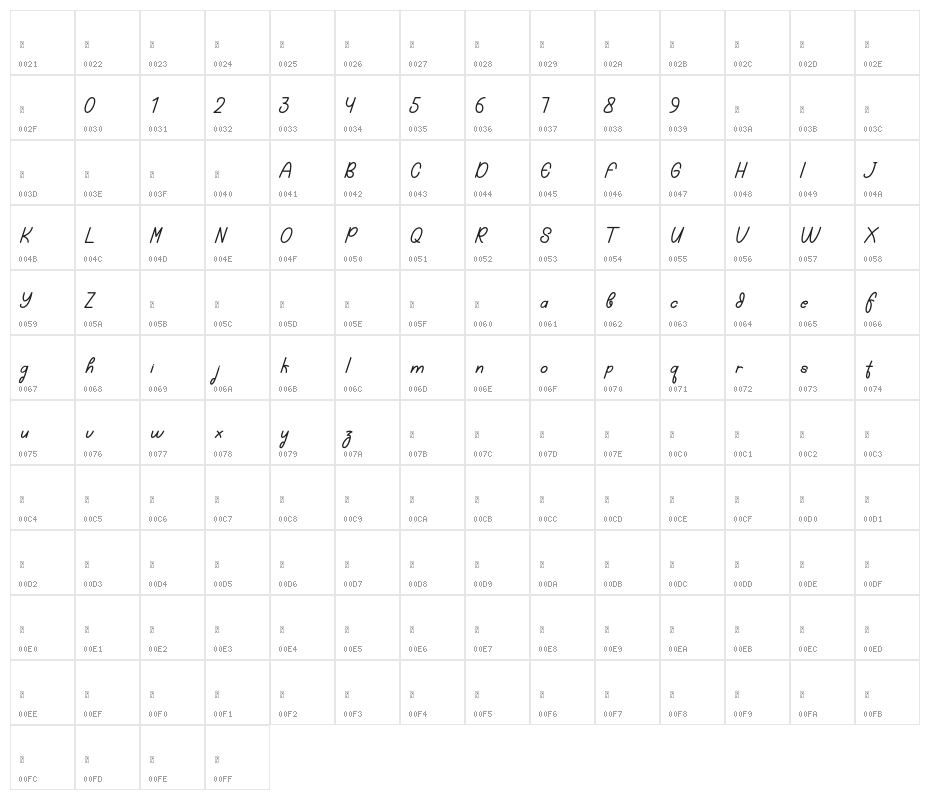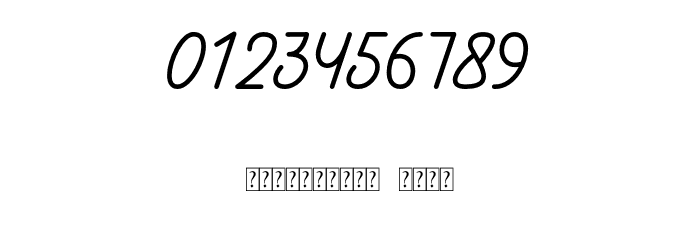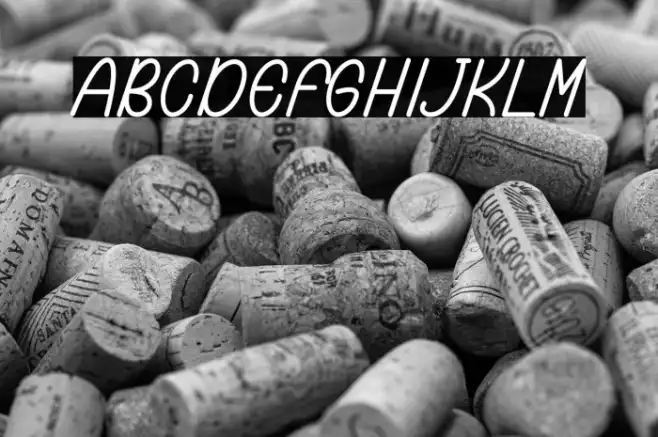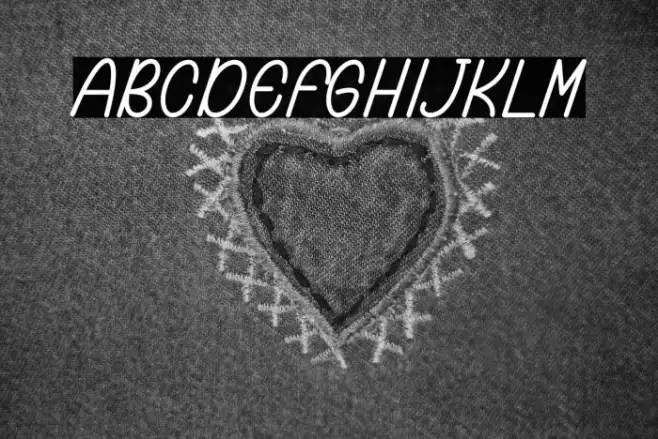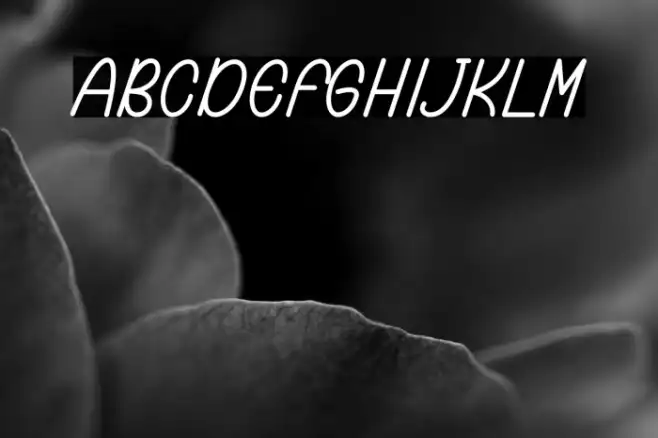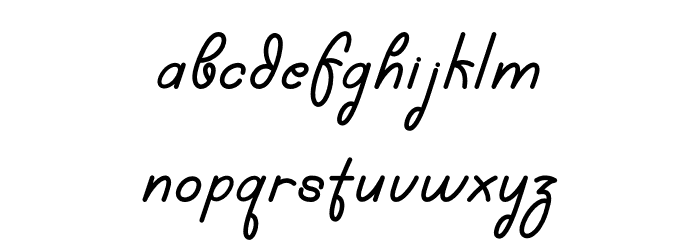
Natadon Demo Font
Natadon Demo Description
This font features a playful and casual script style, characterized by its smooth, flowing lines and slightly slanted orientation. The uppercase letters are bold and prominent, while the lowercase letters maintain a consistent, elegant flow. The numerals are clear and easy to read, complementing the overall style. The font's design is both approachable and stylish, making it suitable for a variety of creative projects. Its handwritten appearance adds a personal touch, ideal for conveying warmth and friendliness.
| Use Case | Logos, Invitations, Social Media |
| Proposed Projects | Ideal for greeting cards, invitations, personal branding, and social media graphics. |